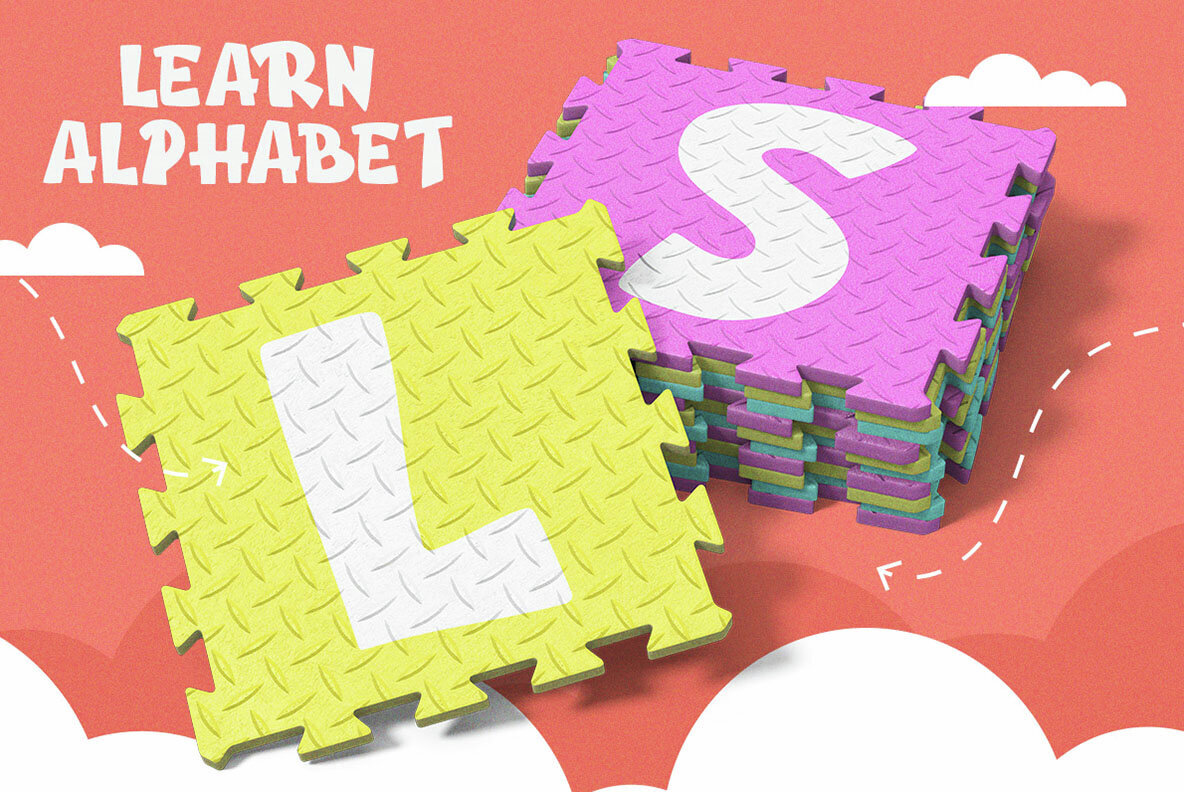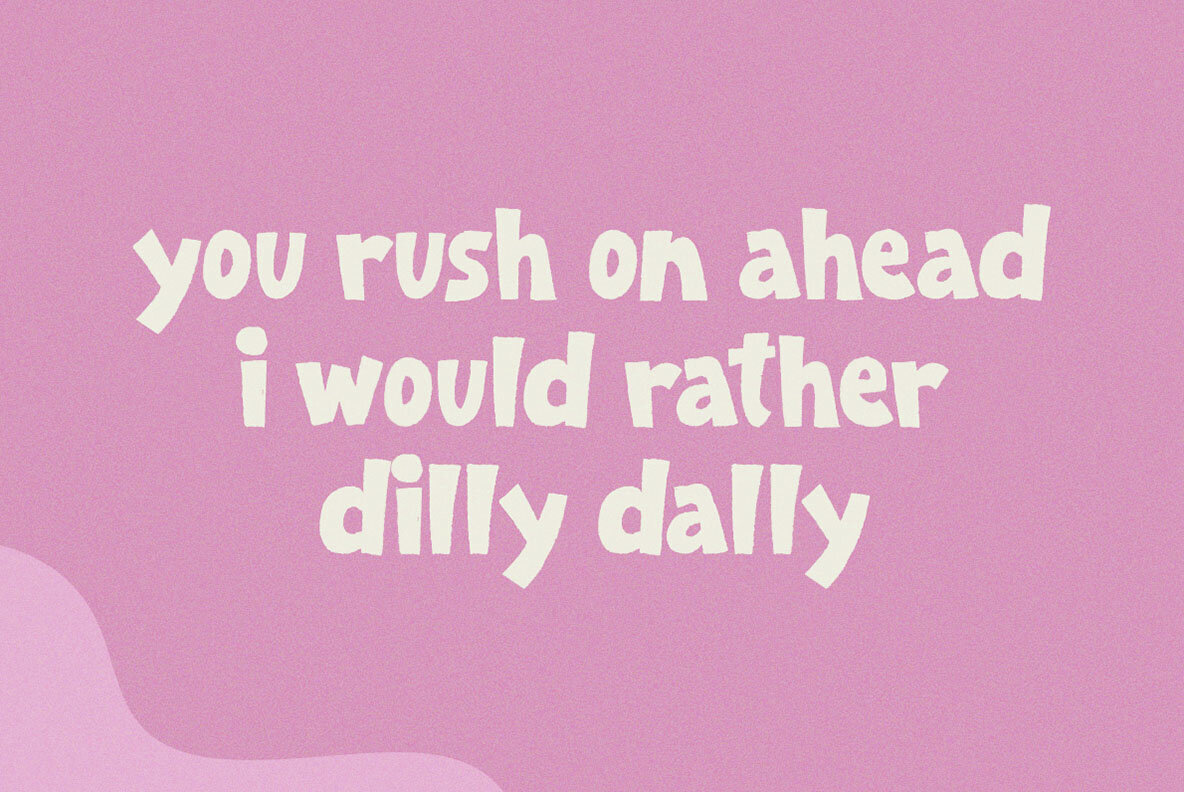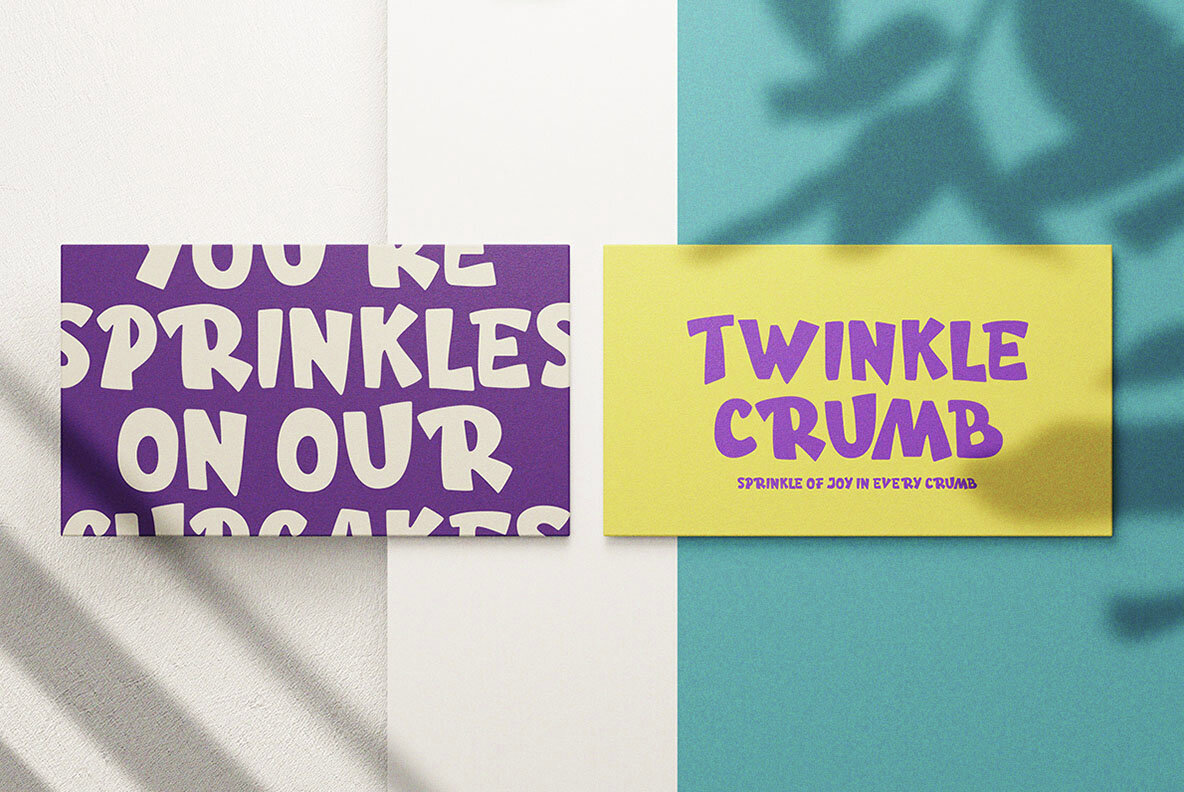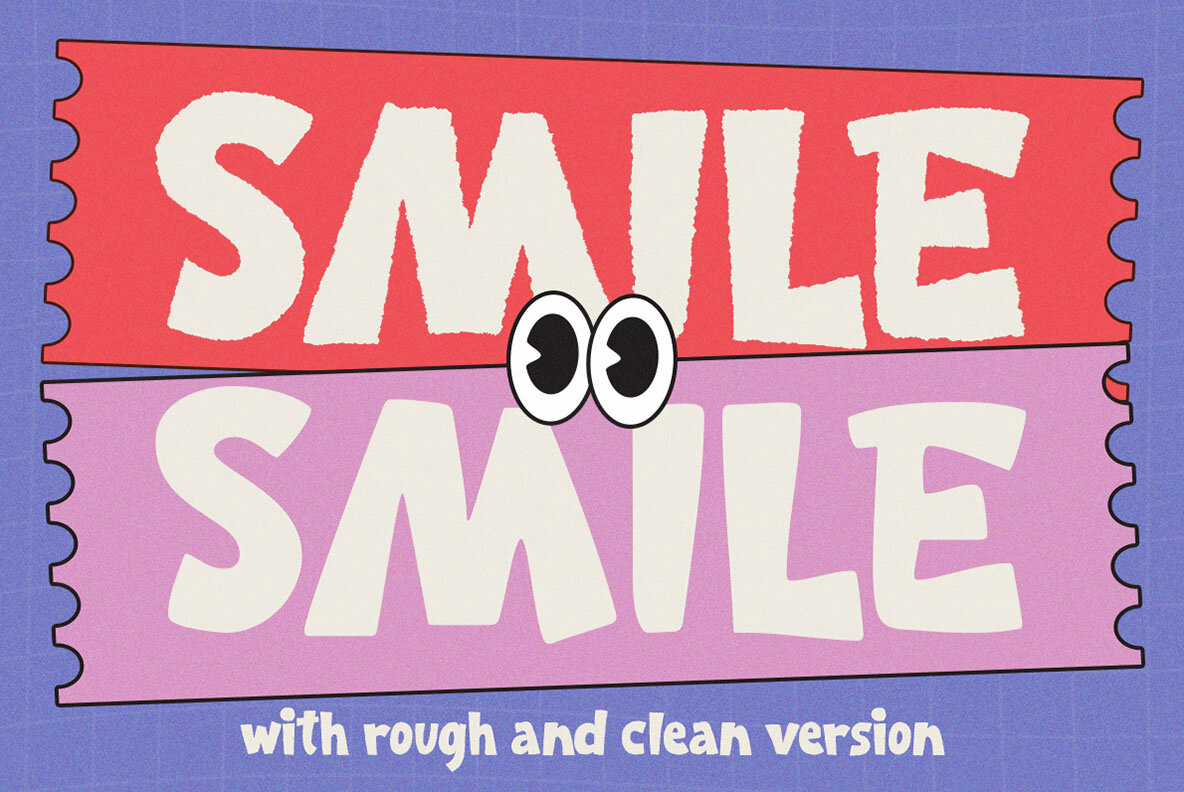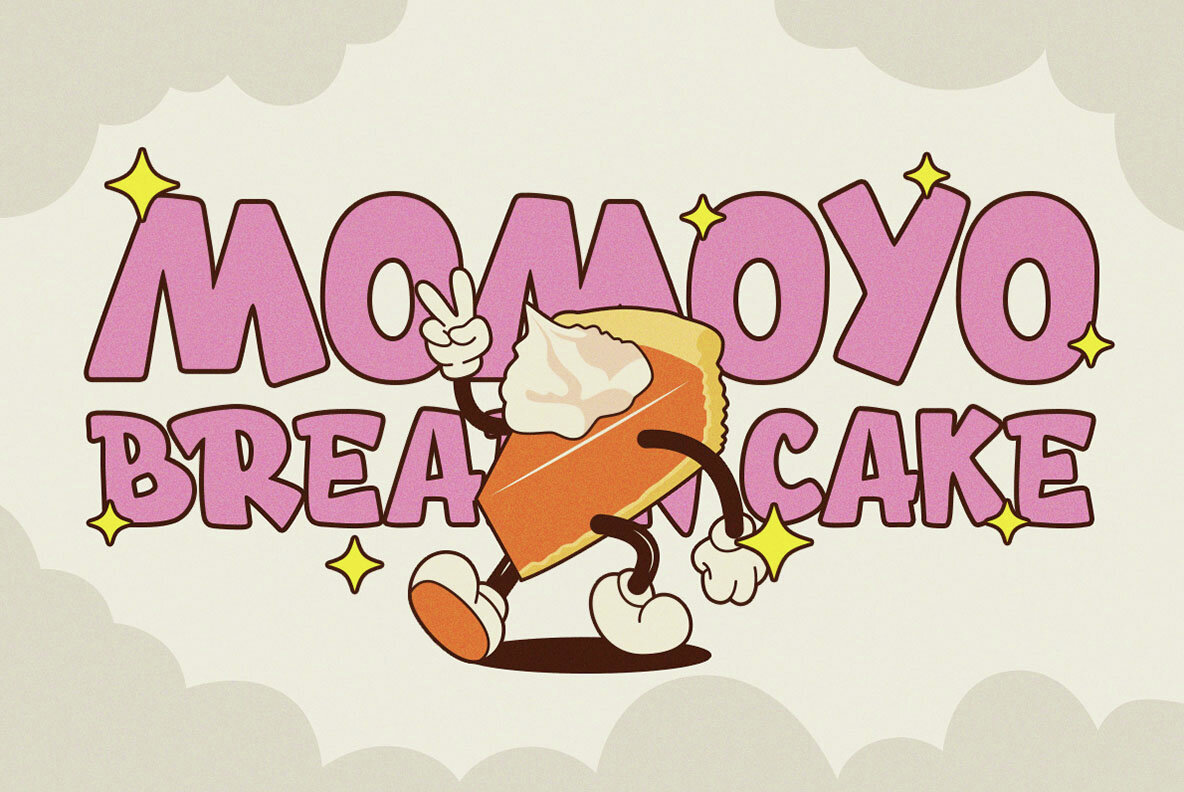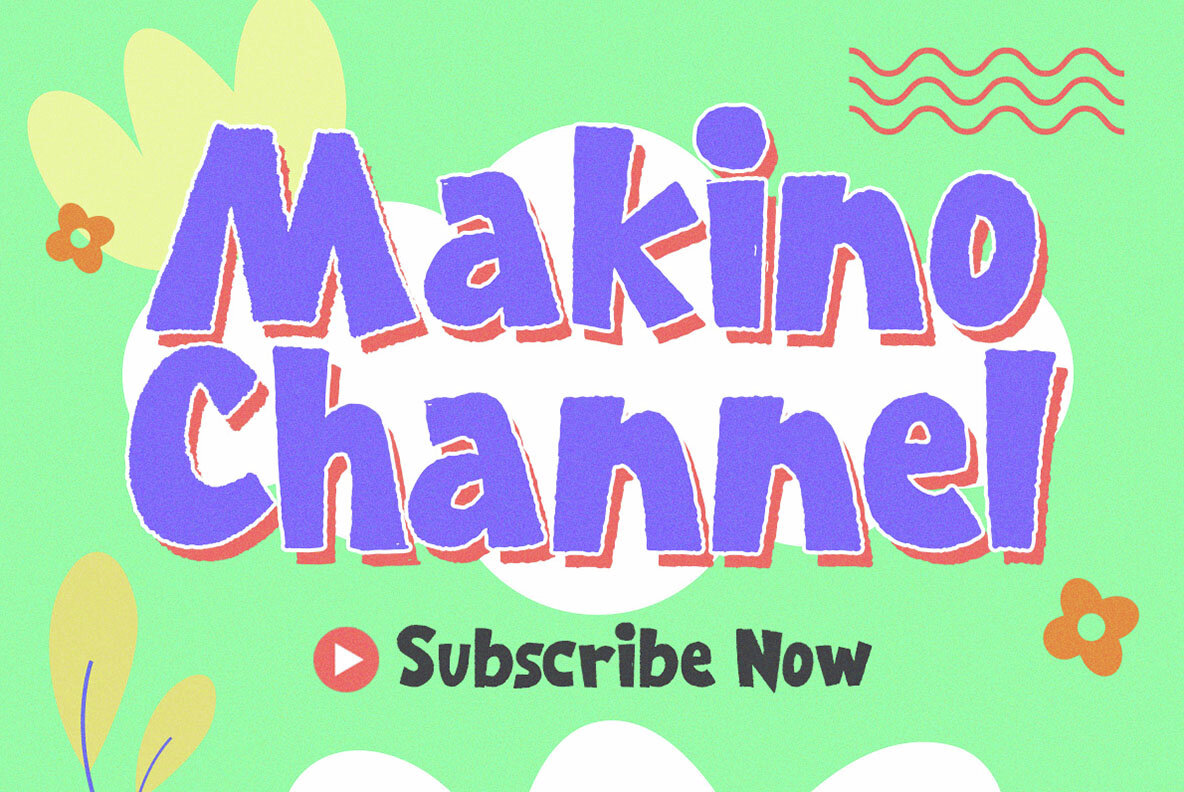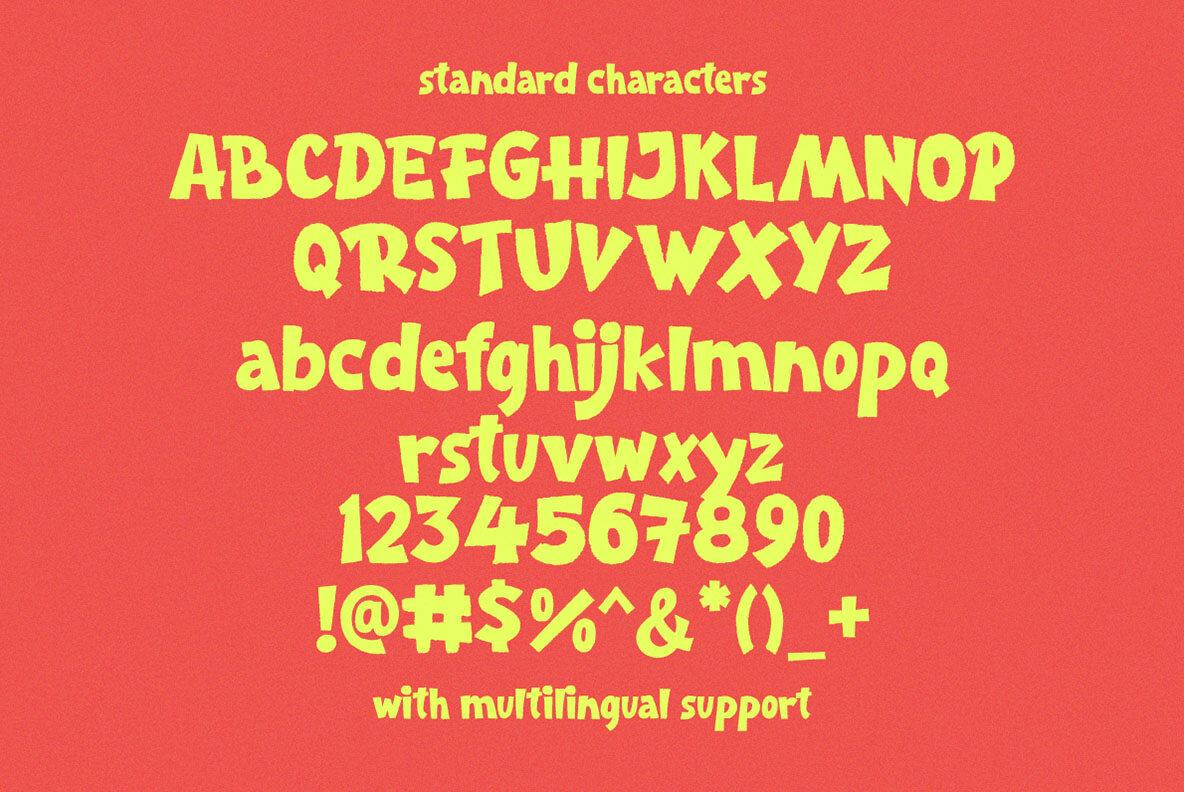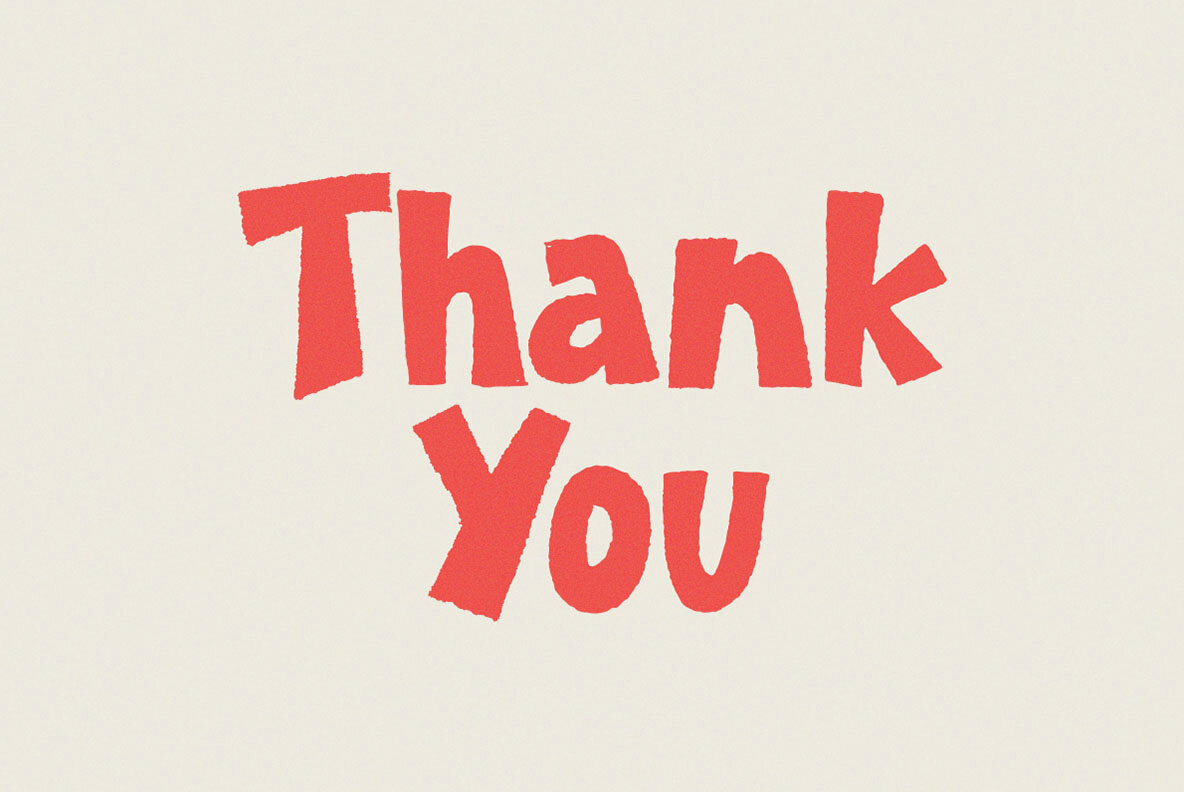
Froaky Font
Froaky is a playful font that brings a whimsical touch to your designs. With its quirky charm, Froaky is ideal for children's illustrations, unique packaging, and vibrant social media content. Perfect for projects that require a light-hearted and fun aesthetic, Froaky promises to inject personality into every creation.
This font includes both uppercase and lowercase characters, along with numbers and punctuation. Moreover, it supports multiple languages and is PUA encoded, offering extensive versatility. We recommend using design programs that support OpenType features and Glyphs panels, such as Adobe applications and Corel Draw, to access all available Glyph variations and maximize the creative potential of Froaky in your projects.